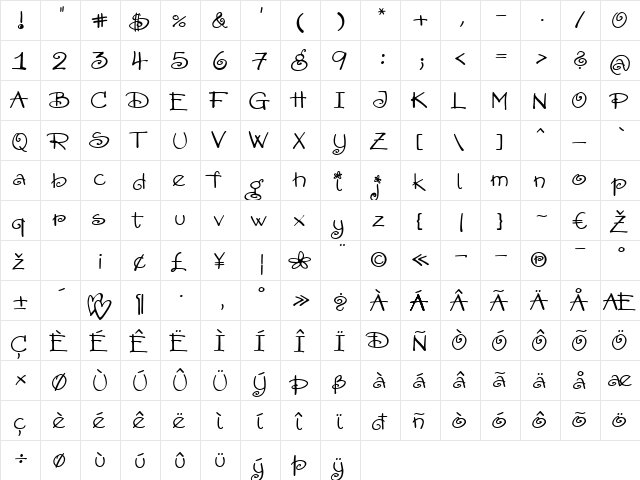
AmoreATT Regular
| Foundry | ParaType, Inc. |
| Designer | Fridman Genady |
Design Context for AmoreATT Typeface
AmoreATT is a composed and adaptable typeface that performs quietly and consistently across a wide range of design contexts.